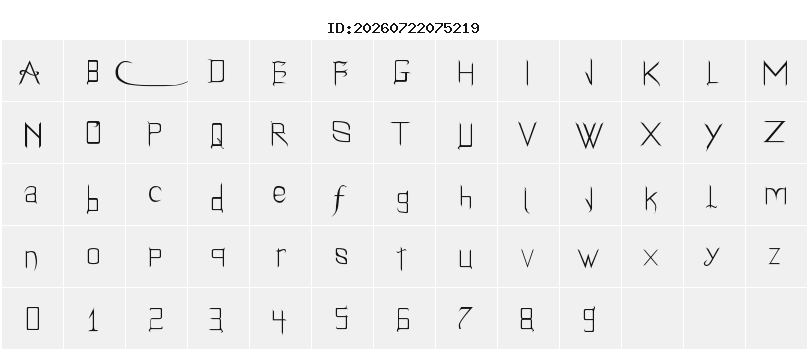
Holitter Gothic Preview
• Font Name: Holitter Gothic
• Font ID: Holitter Gothic
• Full Font Name: Holitter Gothic
• Designer: Biffe
About Holitter Gothic.ttf
Holitter Gothic.ttf is a modern, elegant sans-serif font designed for ultimate readability and visual harmony. Perfect for branding, headlines, web design, and print materials.